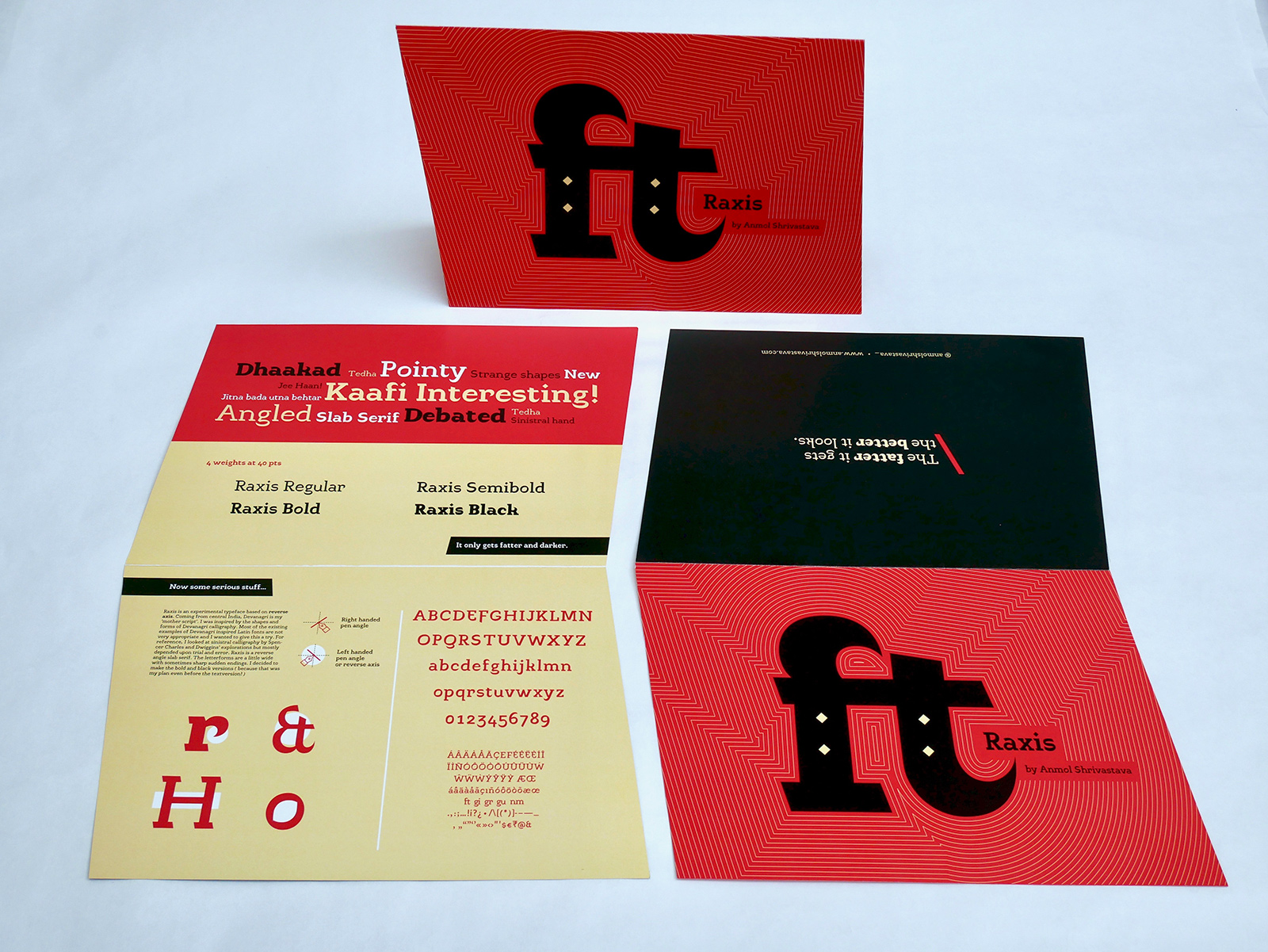
Raxis
Raxis is an experimental typeface based on reverse axis . The normal Latin humanist angle is usually slanting forward but my axis slants backwards. Coming from central India, Devanagri is my ‘mother script’. I was inspired by the shapes and forms of Devanagri calligraphy. The axis for the basic Devanagri calligraphy is also slanting backward. According to me, most of the existing examples of Devanagri inspired Latin fonts look a little copy–paste from Devanagri writing. I wanted to try and do more justice to the Latin letterforms. For reference, I then looked at sinistral calligraphy by Spencer Charles and some Dwiggins’ explorations but was mostly depending upon trial and error to solve this puzzle.
My process started with parallel pen calligraphy in reverse angle. So the initial letters look extremely weird. I practiced a lot of Devanagri and Latin calligraphy alongside to understand how the pen would work and the shapes it would create for Latin better. The process was like a tug of war between the basic Latin letterform construction rules and the crazy elements that came from the calligraphy sessions with the parallel pen. And after much deliberation and back & forth , Raxis was born.
Raxis is a reverse angle slab serif. The letterforms are a little wide with sometimes sharp and sudden endings. I decided to make the tail of t and j, the heads of r and s pointy. We had to begin with a text version but for extendin this typeface, I decided to go bolder. I did a really fat version which could also be used as a display (that was my plan even before the text!). The main challenge was to make the regular weight text friendly. And the black-er the typeface gets, the better it’s overall colour looks.